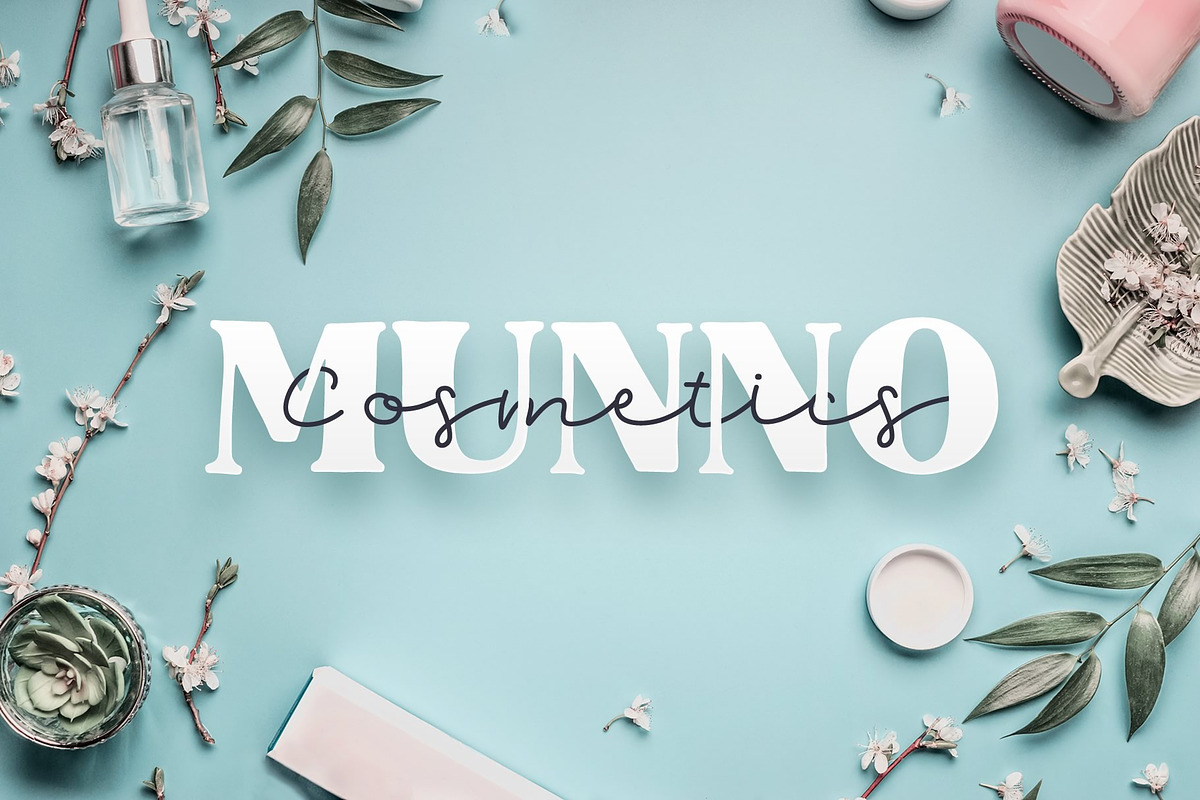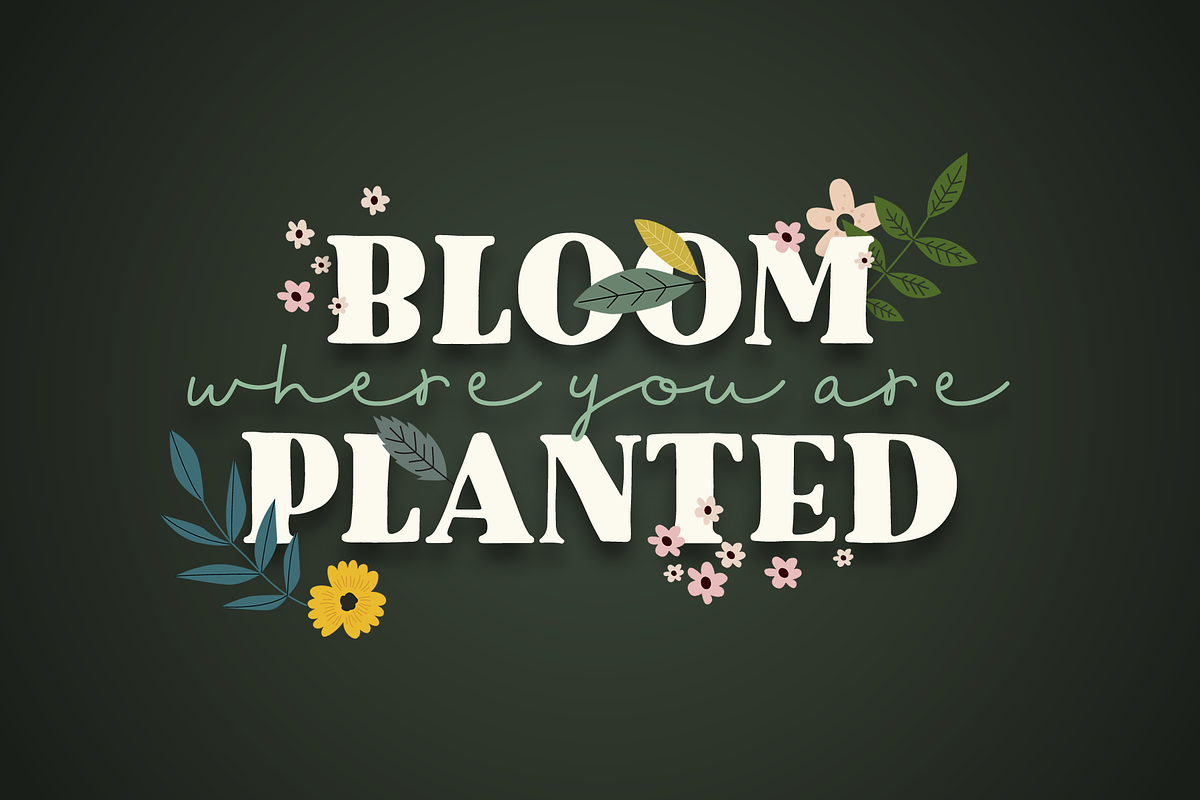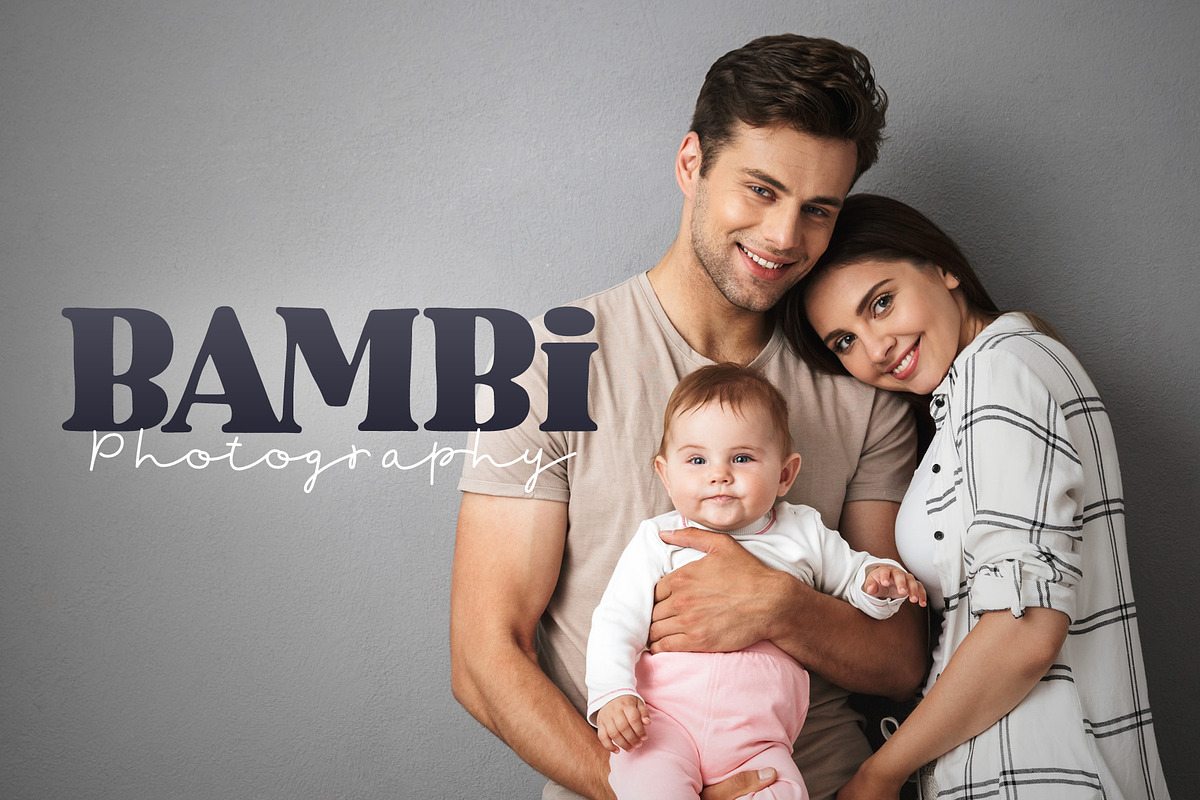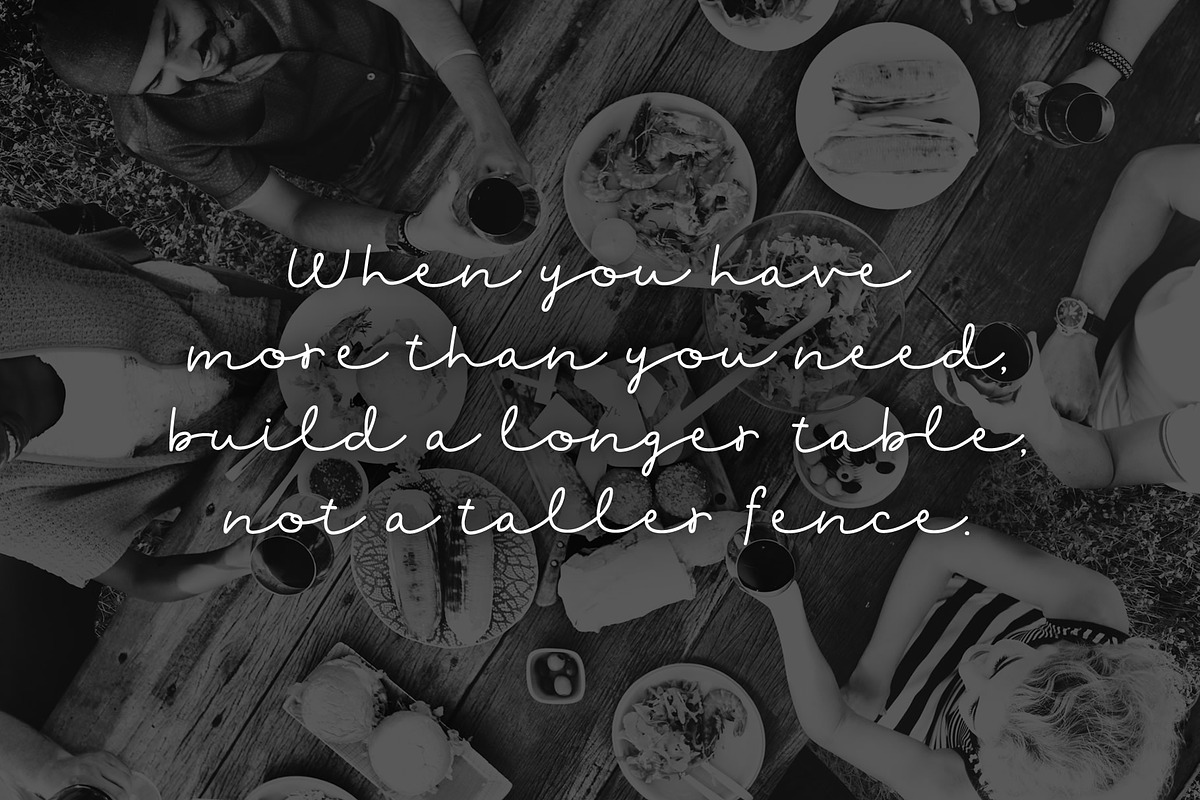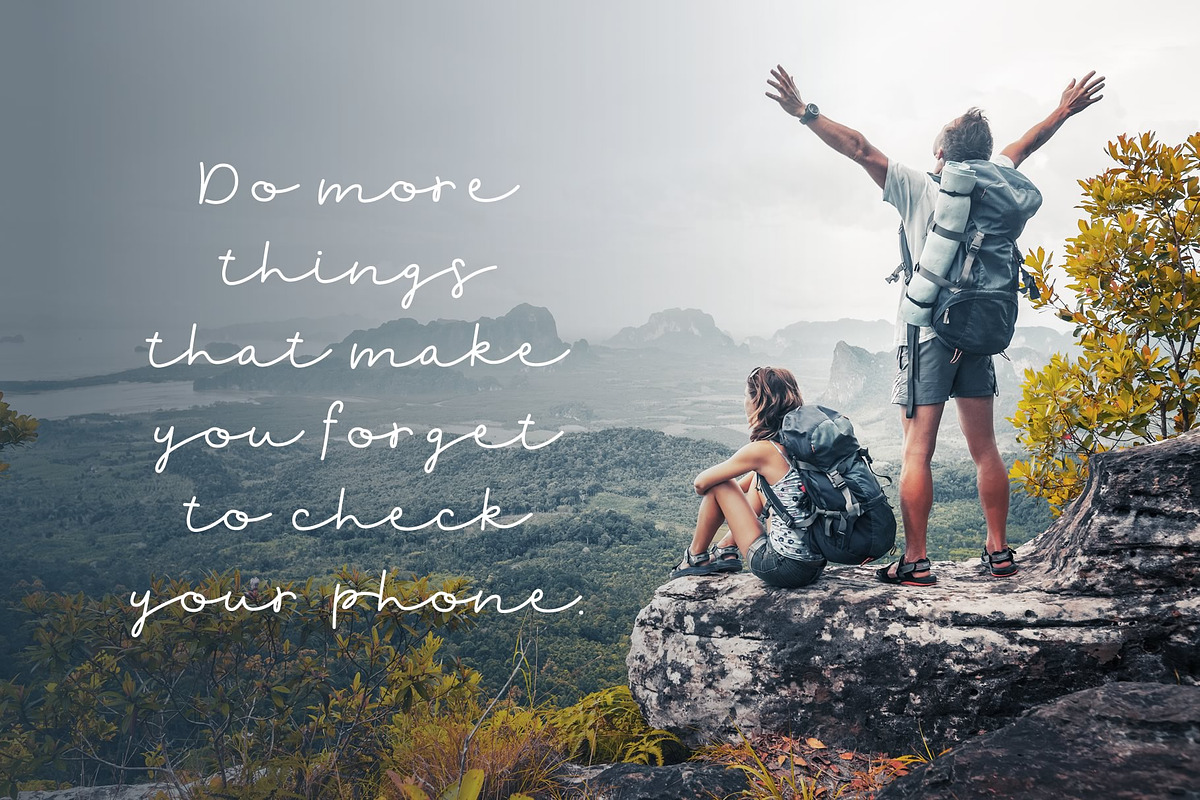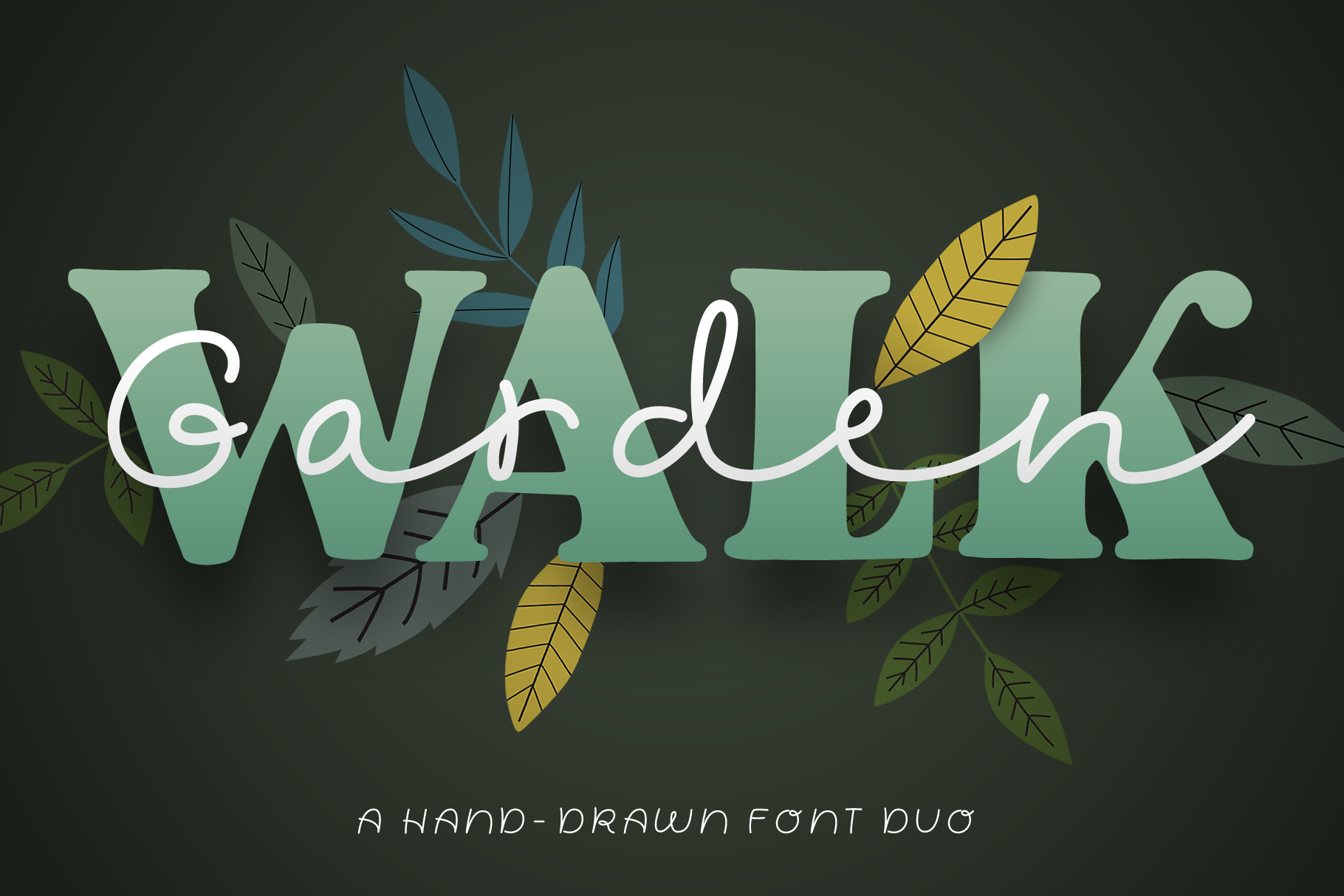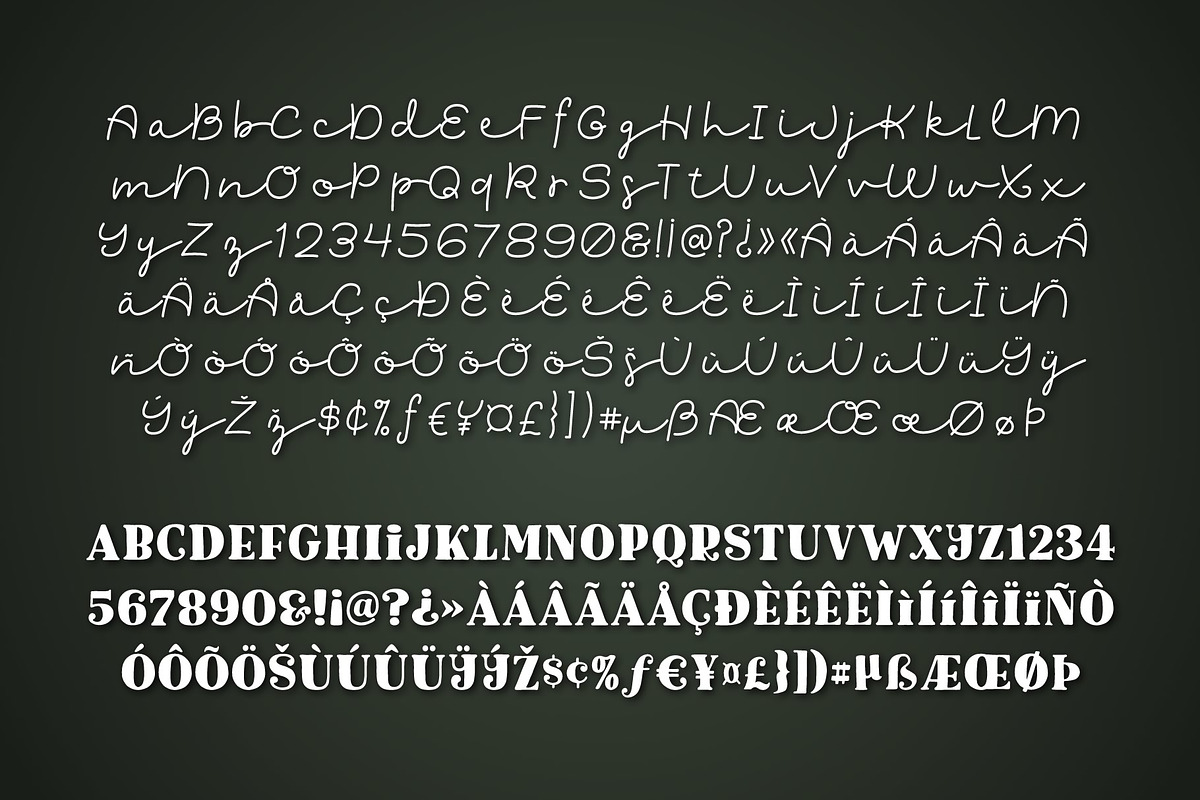
Garden Walk Font Duo
Garden Walk Font Duo combines a thin, monoline script with a bold, stylized serif. This dynamic combination is perfect for logos and branding, or can be used on their own for a subtler style.